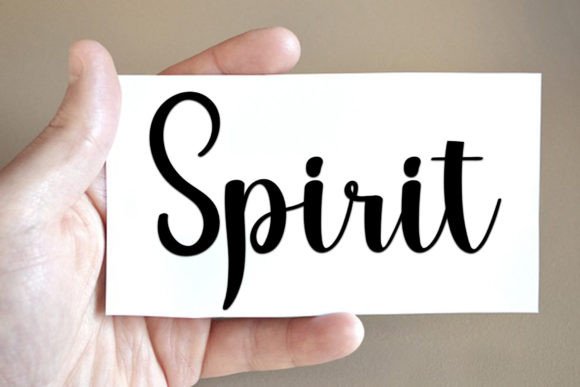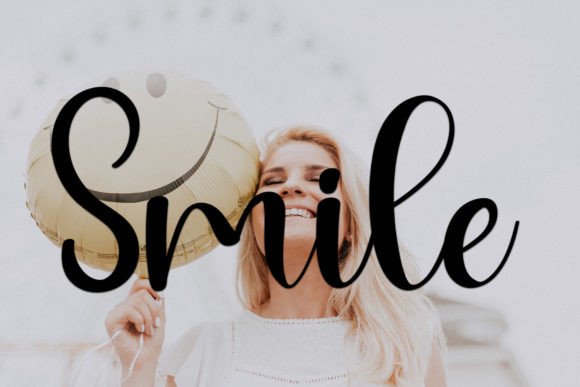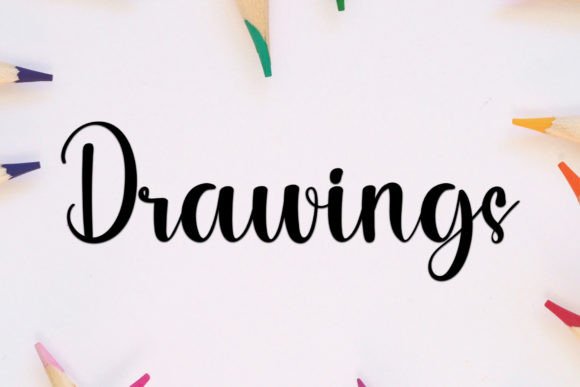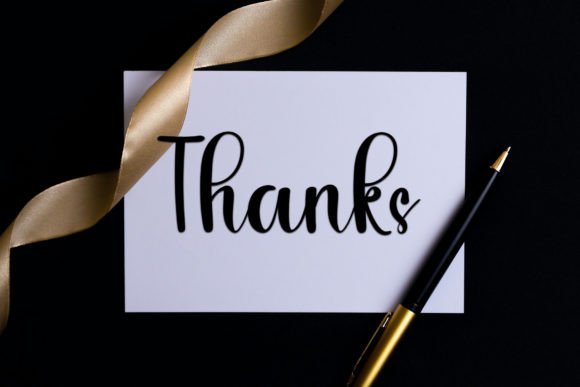
The Bright Font: A Timeless, Handwritten Gem for Your Designs
Have you ever been in the middle of a design project, and suddenly, you just can’t seem to find the right font? I recall a particularly frustrating experience while working on a branding project for a boutique client. The brief was simple: create a logo that exuded elegance and sophistication. But, as I scrolled through my font library, nothing seemed quite right. That was until I stumbled upon the Bright font.
First Impressions: A Love Affair with Bright
Bright is a neat and beautiful handwritten font that instantly captured my heart with its elegant touch. Described as a perfect fit for your favorite projects, I was excited to see if it would live up to its promise. And, I’m thrilled to report that it did! The incredibly distinct and timeless style of Bright makes it an excellent choice for designers, crafters, and creative hobbyists looking to add a touch of sophistication to their work.
What I Love About Bright ✨
- ✅ Elegant and refined: Bright’s handwritten style is perfect for projects that require a touch of sophistication.
- ✅ Highly legible: Even at smaller font sizes, Bright remains clear and easy to read.
- ✅ Versatile: From logos and branding to packaging and digital media, Bright is an excellent choice for various design applications.
- ✅ Unique character set: Bright’s glyphs and stylistic alternates offer a wide range of creative possibilities.
While Bright is an exceptional font, there are a few minor limitations to consider:
- ⚠️ Limited availability of extended language support.
- ⚠️ Some users may find the font too delicate for certain design applications.
The Story Behind Bright: Designer Inspiration
Bright was crafted with passion and dedication by a talented type designer who aimed to create a font that would inspire creatives to produce stunning work. Although the designer’s story is shrouded in mystery, their love for typography and commitment to quality are evident in every detail of Bright.
Q: What makes Bright a great choice for designers?
A: Bright’s elegant, handwritten style and highly legible characters make it an excellent choice for designers looking to add a touch of sophistication to their work.
Q: Is Bright suitable for digital media?
A: Absolutely! Bright’s clear and legible characters make it an excellent choice for digital media, including websites, social media, and email marketing.
Q: Can I use Bright in languages other than English?
A: While Bright supports multiple languages, its extended language support is limited. Please review the font’s specifications to ensure compatibility with your desired language.